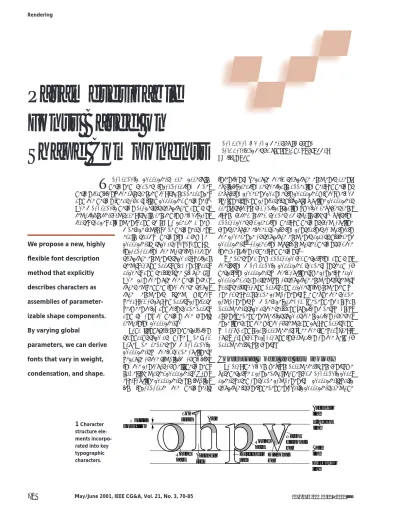
T
ypographic characters are carefully designed shapes incorporating type-design tradition,1the rules related to visual appearance, and the design ideas of a skilled character designer.2 The typographic design process is structured and sys-tematic: letterforms are visually related in weight, con-trast, space, alignment, and style. To create a new typeface family, type designers gen-erally start by designing a few key characters—such as o, h, p, and v— incorporating the most important structure elements such as vertical stems, round parts, diagonal bars, arches, and serifs (see Figure 1). They can then use the design fea-tures embedded into these struc-ture elements (stem width, behavior of curved parts, contrast between thick and thin shape parts, and so on) to design the font’s remaining characters.3Today’s industrial font description standards such as Adobe Type 1 or TrueType represent typographic characters by their shape outlines, because of the simplicity of digitiz-ing the contours of well-designed, large-size master characters.4 How-ever, outline characters only implic-itly incorporate the designer’s
intentions. Because their structure elements aren’t explicit, creating aesthetically appealing derived designs requiring coherent changes in character width, weight (boldness), and contrast is difficult. Outline characters aren’t suitable for optical scaling, which requires rela-tively fatter letter shapes at small sizes.5 Existing approaches for creating derived designs from outline fonts require either specifying constraints to maintain the coherence of structure elements across different characters6,7or creating multiple master designs for the interpolation of derived designs.8
We present a new approach for describing and syn-thesizing typographic character shapes. Instead of describing characters by their outlines, we conceive each character as an assembly of structure elements (stems, bars, serifs, round parts, and arches) implemented by one or several shape components. We define the shape components by typeface-category-dependent global parameters such as the serif and junction types, by glob-al font-dependent metrics such as the location of refer-ence lines and the width of stems and curved parts, and by group and local parameters. (See the sidebar “Previ-ous Work” for background information on the field of parameterizable fonts.)
Conceptual model and terminology
To provide highly flexible parameterizable fonts, we first describe a conceptual model for typographic char-acters based on shape components. A character’s basic structure is font independent. Basic characters are madeWe propose a new, highly
flexible font description
method that explicitly
describes characters as
assemblies of
parameter-izable shape components.
By varying global
parameters, we can derive
fonts that vary in weight,
condensation, and shape.
Parameterizable
Fonts Based on
Shape Components
Optical correction Arch Roundpart Ascenderstem
Round part Diagonal bar Narrow diagonal bar Descender stem Ascender line x-height line Base line Descender line Top serif
1
Character structure ele-ments incorpo-rated into key typographic characters.of stem, bar, sweep, half-loop, serif, and terminal com-ponents. Figure 2 shows the set of components and their interconnections for the characters h and b.
By specifying the junction between components (for example, the junction between a stem and a sweep) and by associating absolute and relative metrics to the set of
The earliest work known to describe typographic characters by parameterizable shape primitives is that of Philippe Coueignoux, who designed one of the first fully digital typesetter controllers.1
The most serious published work done in the field of parameterizable fonts is the Metafont system, a program-mable parameterizable font synthesizing system.2The Metafont system relies on a few basic paradigms for generating characters and symbols. The main character parts such as horizontal, vertical, and diagonal strokes and round parts are specified by describing the path of a pen with given orientations and pen widths. A sequence of pen positions and directions describes the pen’s central path. From this information, Metafont computes a smooth centerline pen trajectory. With the given pen positions, widths, and orientations and with the centerline trajectory, Metafont infers the description of the corresponding pen stroke’s boundary.3It adjusts serifs with font-dependent serif width, height, and depth information to the computed stroke boundary. The shape boundary resulting from the assembly of serifs and stroke can either be directly filled or traced by a small, circular pen and then filled. In addition to strokes defined by pen trajectories, Metafont specifies round character parts covering one or a multiple quadrants by superarcs, that is, scaled arcs defined within single quadrants without outlines whose boundaries are given by superellipses.2
Donald Knuth used the Metafont program to create his Computer Modern typeface family.4He parameterized the Computer Modern typefaces so as to automatically generate optically scaled fonts and to generate sans-serif, typewriter, semibold, bold, condensed, and slanted roman fonts by a simple change of parameterizations. Metafont uses separate character shape descriptions for the italic font. Since Metafont is both a complete programming language and a flexible font design tool, using it requires both programming and typographic skills. Only a few individuals use Metafont, often for designing non-Latin characters.5,6 One of the lessons learned by Metafont users designing Latin characters is that Metafont’s pen paradigm doesn’t offer sufficient freedom to exactly generate character shapes according to the designer’s intention. This explains why most Metafont designs for Latin fonts besides Computer Modern rely heavily on outline descriptions.7
The recent Infinifont system (US Patent 5,586,241)8is a feature-based parameterizable font description and reconstruction system. Its authors describe the basic mechanism to assemble a character such as character E from parameterizable vertical bars, horizontal bars, and serifs. However, most of their work isn’t published, so we don’t know how they synthesize different typeface categories and which paradigms they use for synthesizing curved character shapes and serif variants.
Schneider describes a method for assembling parameter-izable pen-based strokes into typographic characters.9 Regarding Latin character shapes, the method suffers from the same limitations as Metafont. It seems, however, well suited for synthesizing Asian characters (such as Kanji and Hangul).